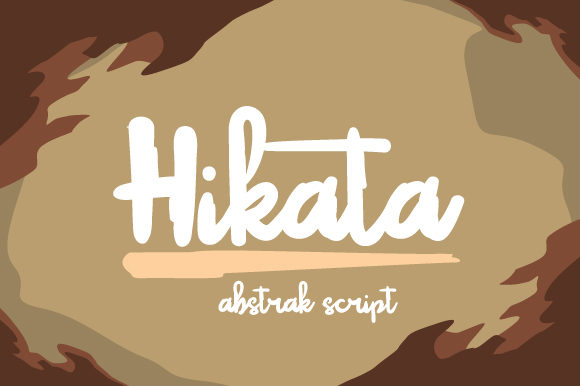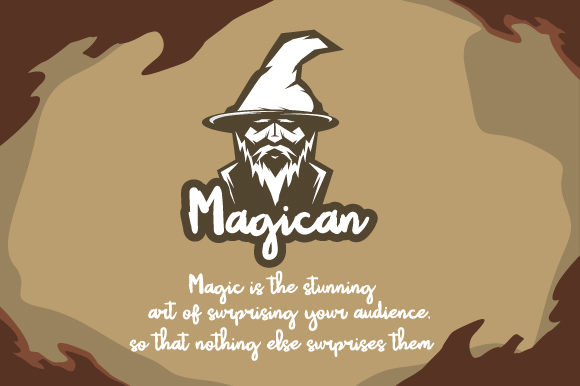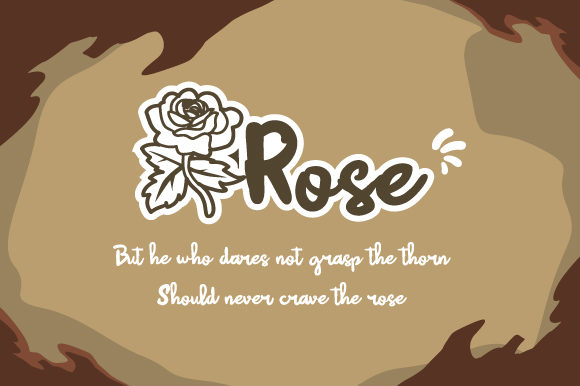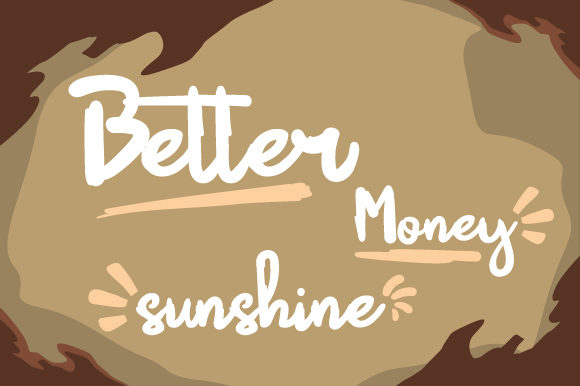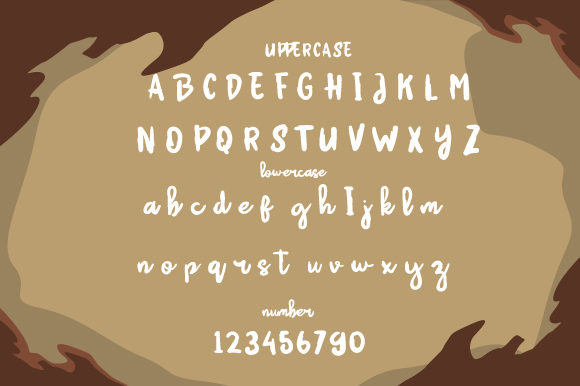
Hikata Font
About Hikata Font
Hikata results out of a stunning pairing of a brush pen and pencil that makes it look incredibly endearing and authentic. Whether you’re looking for fonts for Instagram or calligraphy scripts for DIY projects, this handwritten font will turn any creative idea into a true piece of art!